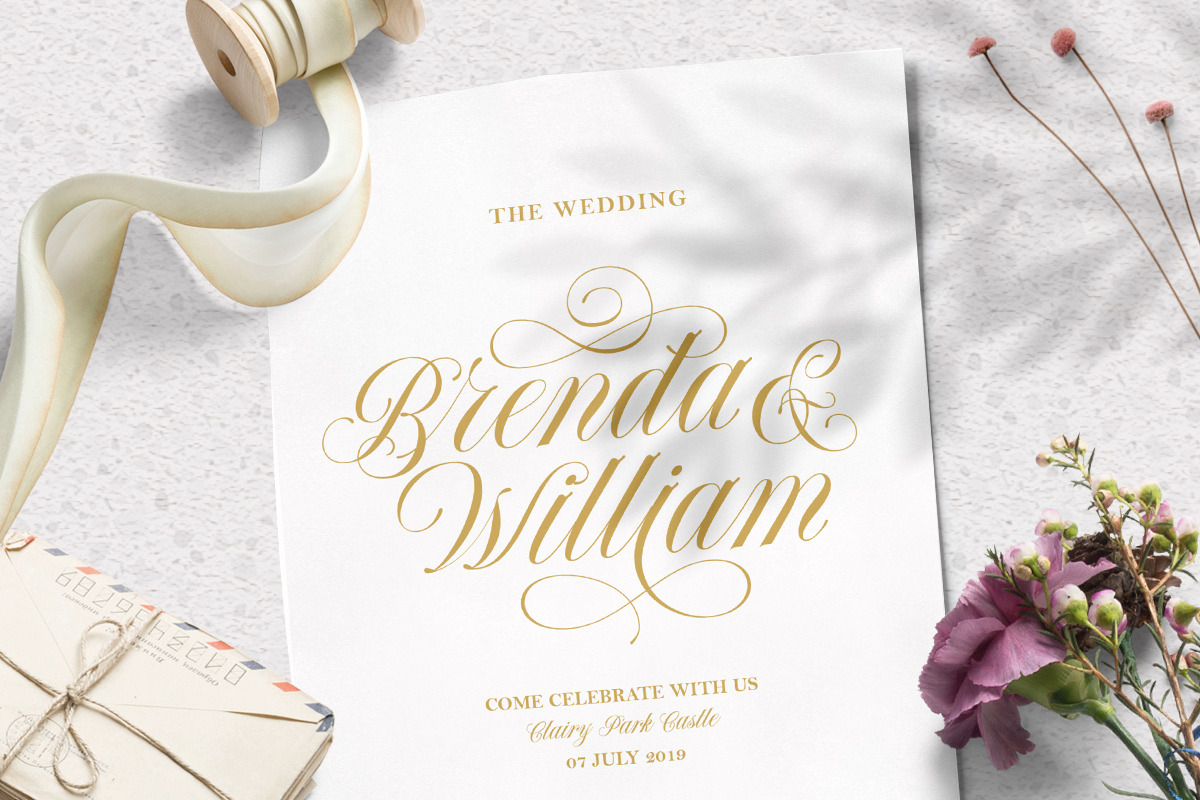
Forthsmith Classic Script
Please welcome our newest script typeface, Forthsmith Classic. A Beautiful and classy script that has many swashes that allows you to create beautiful lettering instantly. it has many stylistic set alternates that you can choose from. the swashes also provided in EPS file format as well.
This font perfectly made to be applied especially in logo, and the other various formal forms such as invitations, labels, logos, magazines, books, greeting / wedding cards, packaging, fashion, make up, stationery, novels, labels or any type of advertising purpose.
I have a number of Script fonts, but none of them offer as many alterate glyphs as Forthsmith has, up to 9 Alternates for every charater, Opentype Stylistic Sets, plus the Trails and the many Swashes. This give you the control to adapt the script to many different needs and uses. You can use Forthsmith as a clean body text, or make it a fancy as you want for other applications, such as formal invitiations. This wide range of flexibity makes the font very cost-effective and worth purchasing.
This is just a lovely font. Elegant, interesting, and easy to read in spite of its complexities. Thanks so much!!!